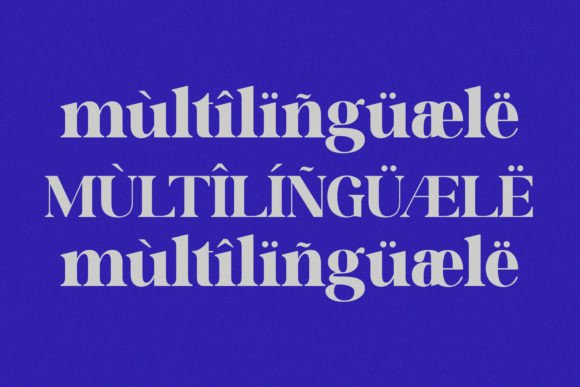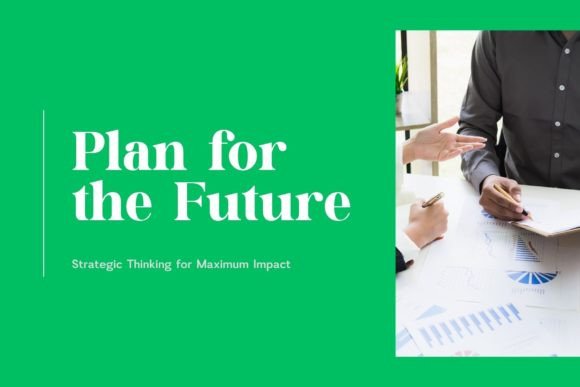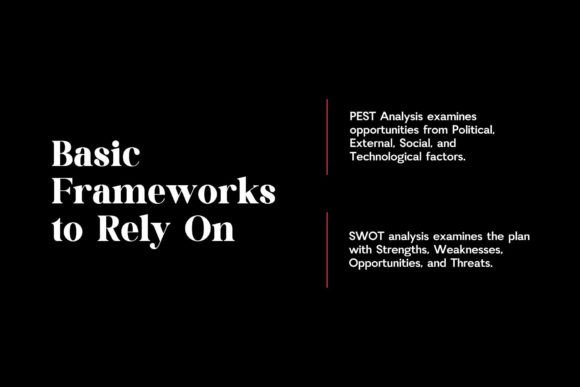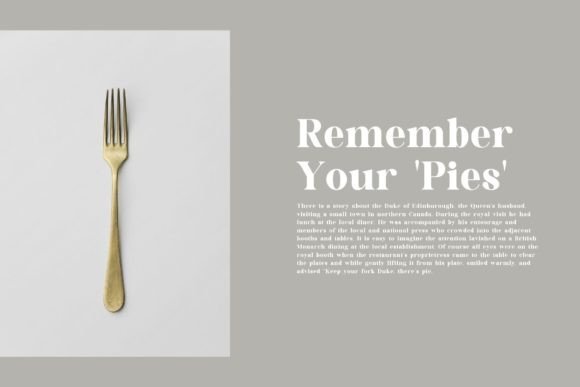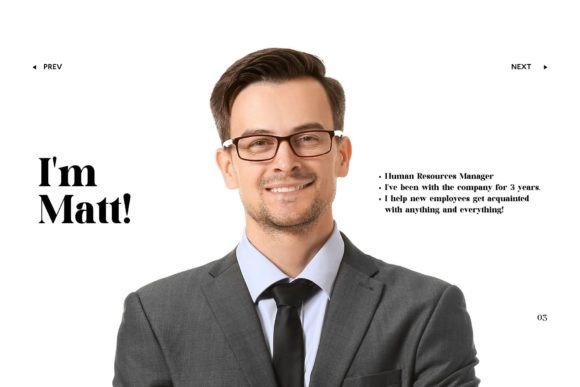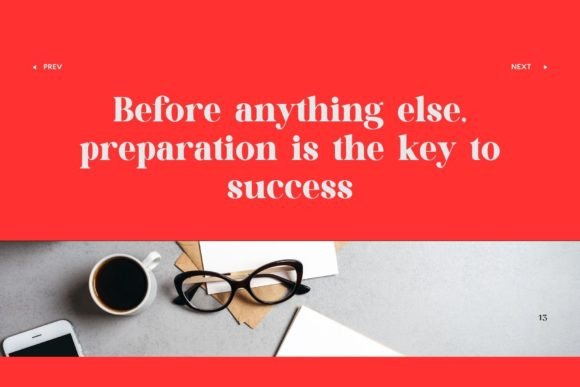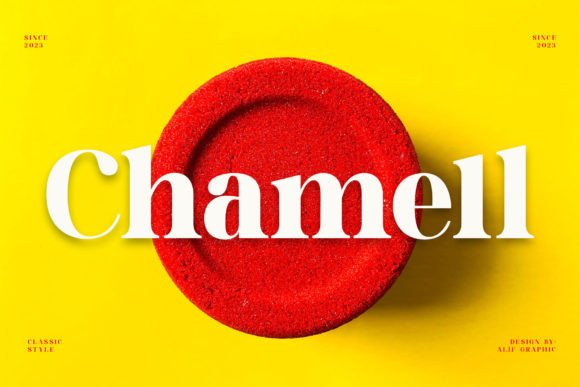
Introducing Chamell: The Modern Serif Font for Sophisticated Designs
In the world of typography, a well-crafted font can elevate a design from ordinary to extraordinary. For designers and crafters seeking a refined and timeless aesthetic, Chamell is the perfect choice. This modern serif font seamlessly blends sophistication with contemporary style, making it an ideal selection for a wide range of projects.
The Art of Chamell: A Harmonious Blend of Tradition and Modernity
Chamell is a masterfully designed serif font that effortlessly merges the elegance of traditional typography with the sleekness of modern design. Its clean lines and elegant serifs create a sense of refinement and poise, perfect for projects that demand a high level of sophistication. Whether used in editorial design, branding, or other applications, Chamell exudes a sense of modernity while maintaining a classic charm.
Key Features of Chamell
- Clean Lines and Elegant Serifs: Chamell’s design is characterized by its clean lines and elegant serifs, which create a sense of refinement and sophistication.
- Modern and Timeless Aesthetic: This font’s unique blend of modernity and classic charm makes it perfect for projects seeking a refined and timeless aesthetic.
- Versatile and Adaptable: Chamell is suitable for a wide range of applications, including editorial design, branding, and more.
Applications of Chamell
Chamell’s versatility and adaptability make it an excellent choice for various design projects. Some of the applications where Chamell shines include:
- Editorial Design: Chamell’s elegant serifs and clean lines make it perfect for use in magazines, newspapers, and books.
- Branding and Logo Design: This font’s sophisticated and modern aesthetic makes it an excellent choice for branding and logo design projects.
- Packaging and Advertising: Chamell’s refined and timeless aesthetic makes it suitable for packaging and advertising designs.
Why Choose Chamell?
With so many fonts available, why choose Chamell? Here are a few compelling reasons:
- Unique Aesthetic: Chamell’s blend of modernity and classic charm creates a unique and distinctive aesthetic that sets it apart from other fonts.
- High-Quality Design: Chamell is crafted with attention to detail, ensuring a high-quality design that will elevate your projects.
- Easy to Read and Legible: This font’s clean lines and elegant serifs make it easy to read and highly legible, even at small sizes.
Tips for Using Chamell Effectively
To get the most out of Chamell, here are a few tips:
- Pair with Other Fonts: Chamell pairs well with other fonts, especially sans-serif fonts, to create a harmonious and visually appealing design.
- Experiment with Font Sizes: Chamell’s legibility and clean lines make it suitable for use at various font sizes, from headings to body text.
- Pay Attention to Line Spacing: To ensure optimal readability, pay attention to line spacing and adjust it according to your design needs.
In conclusion, Chamell is a modern serif font that offers a unique blend of sophistication and contemporary style. Its clean lines, elegant serifs, and versatile design make it an excellent choice for a wide range of projects. Whether you’re a designer or crafter, Chamell is sure to elevate your typography and add a touch of refinement to your designs.
Get Ready to Elevate Your Typography with Chamell
Ready to experience the elegance and sophistication of Chamell? Download this modern serif font today and discover a world of typographic possibilities. With Chamell, you can:
- Elevate Your Designs: Add a touch of refinement and sophistication to your designs.
- Stand Out from the Crowd: Chamell’s unique aesthetic sets it apart from other fonts, making your designs more distinctive.
- Enhance Readability: This font’s clean lines and elegant serifs make it easy to read and highly legible.